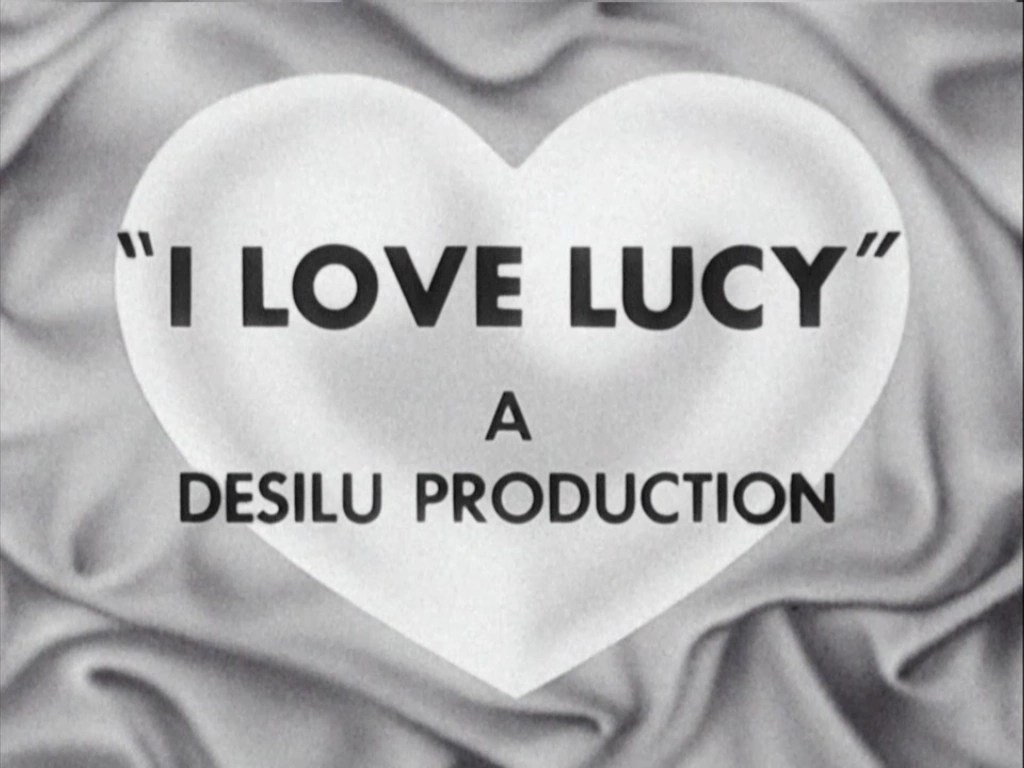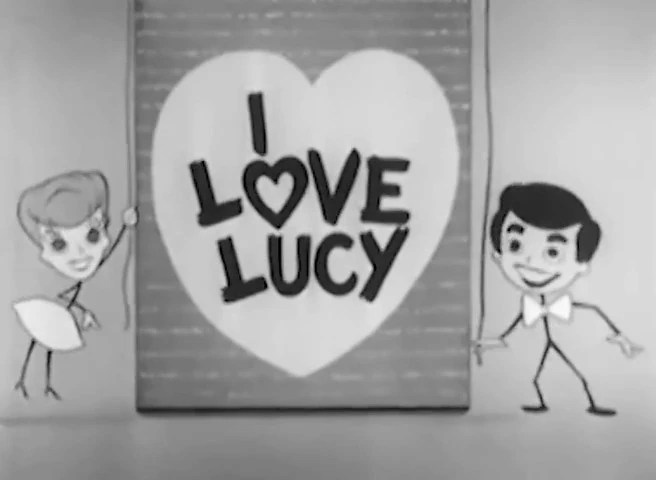
Font Used In I Love Lucy Logo. Polyspring is the font used for the title of a darker shade of magic by v.e. Love lovely is a cute handwritten font.
What Is The Font Used For The 'I Love Lucy' Logo?
This Script Font Is Designed By A Painter And Type Designer R.
The Abc Of Lettering By J.i.
There are several i love lucy fonts. We provide you a great and elagnt script font named lucy script font that looks like maudy, coronet and i love lucy font. Harper & row publishers ny 1965.
Now, Under A New Name, I Designed The Lowercases, Numbers And Punctuations Inpired In Different Sources.